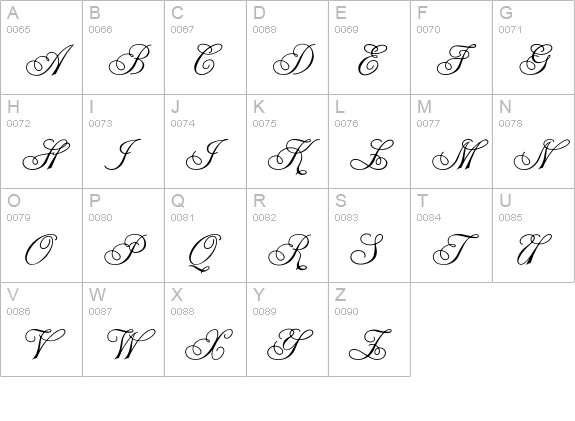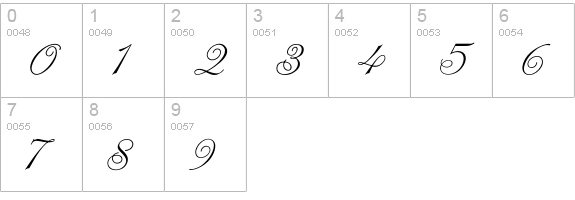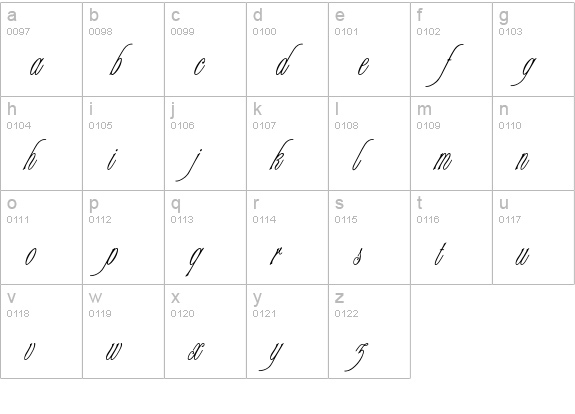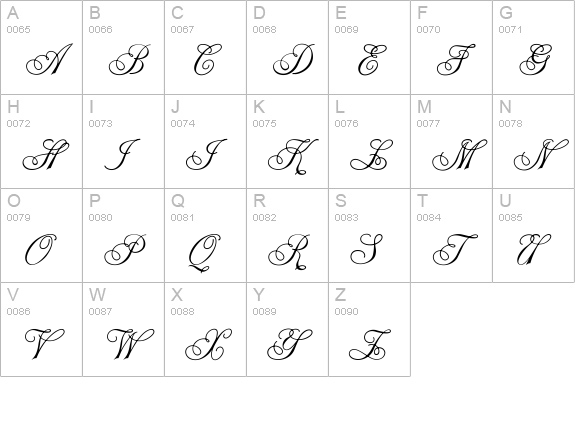
Champagne font is a stunning and elegant typeface that exudes luxury and sophistication. Its intricate details and beautiful curves make it a perfect choice for creating upscale and stylish designs. This font is sure to add a touch of class to any project, whether it's for a wedding invitation, a branding project, or a special event. The best part? Champagne font is completely free to download at FontsMarket.com. With just a few clicks, you can elevate your designs with this exquisite typeface without breaking the bank. Don't miss out on this amazing opportunity to enhance your projects with the timeless beauty of Champagne font. Download it today and let your creativity shine!